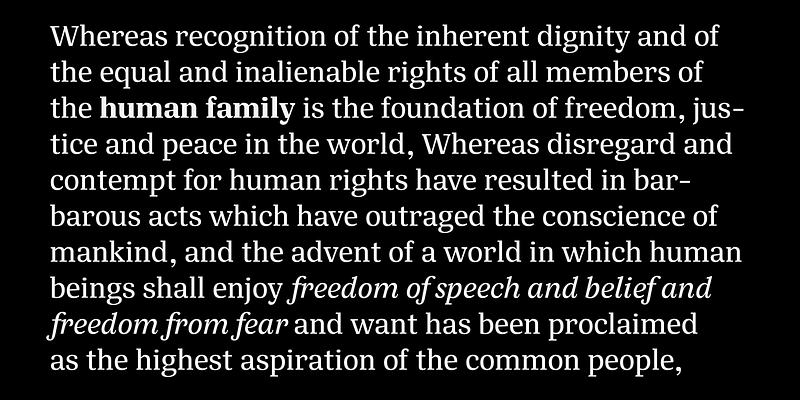
Silva Text Font Free Download
Silva Text Font Free Download is a versatile and elegant serif typeface designed for readability and style. With its classic proportions and refined details, this font is perfect for editorial design, long-form content, books, websites, and any project that demands a sophisticated yet functional typeface.
Silva Text Font performs beautifully in both large headings and smaller body text, ensuring excellent legibility across different screen sizes and print formats. It integrates seamlessly with design tools like Adobe Illustrator, Photoshop, Figma, and Canva, offering flexibility for both digital and print projects.